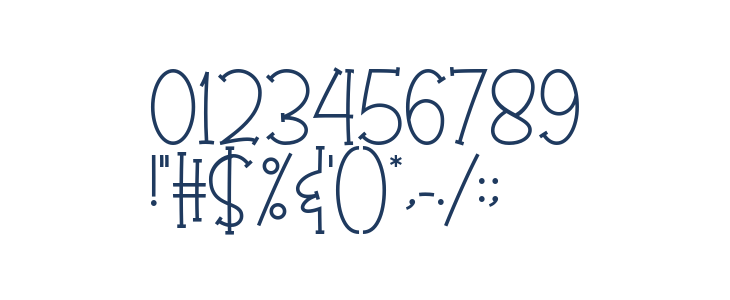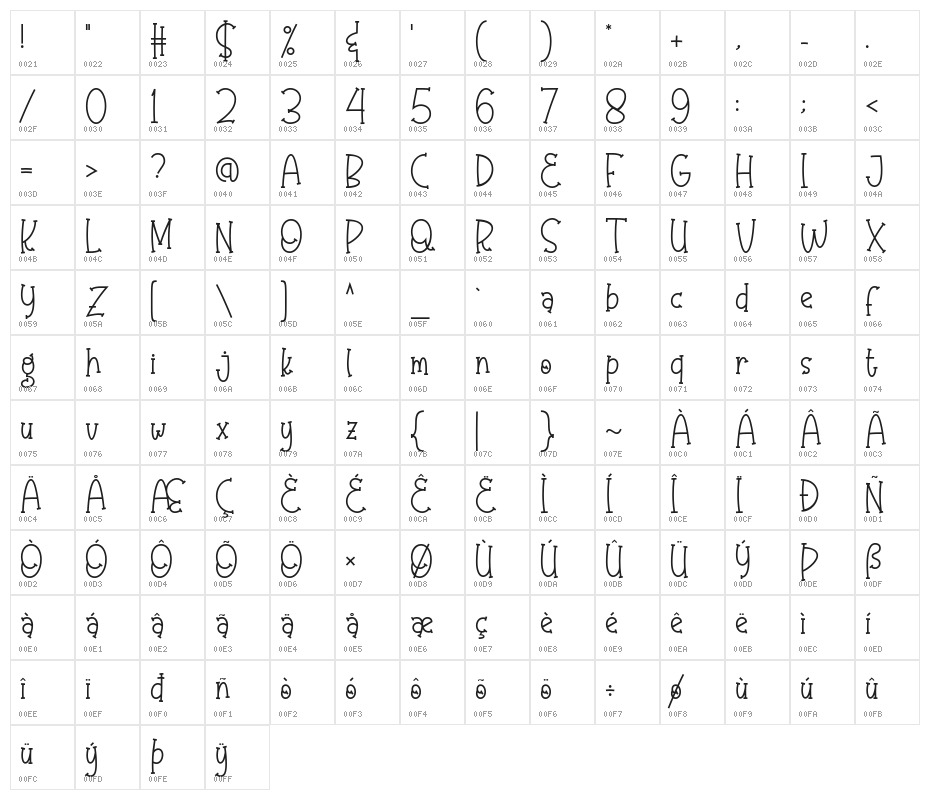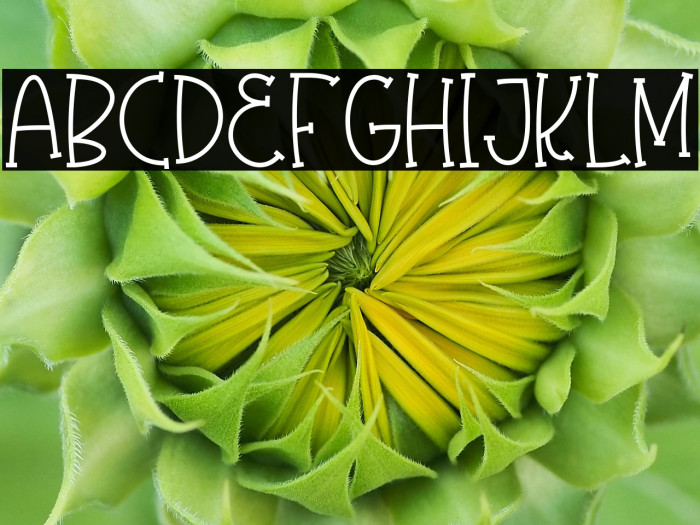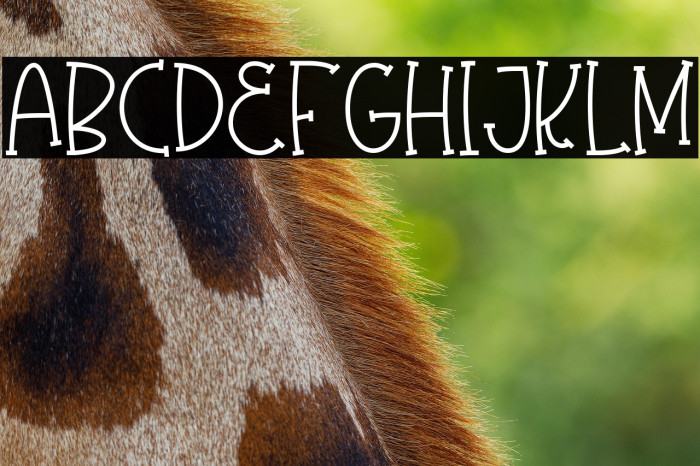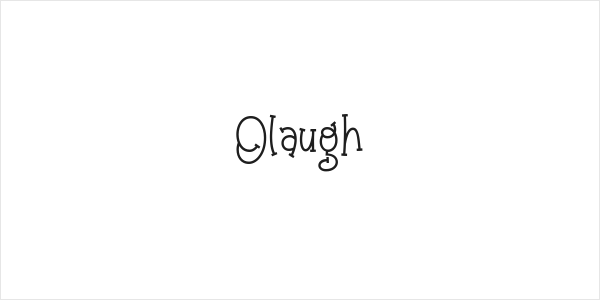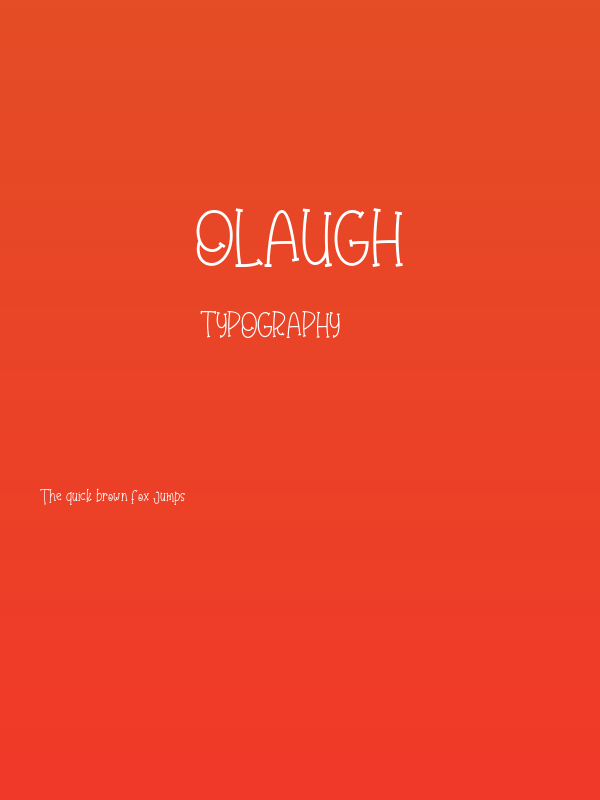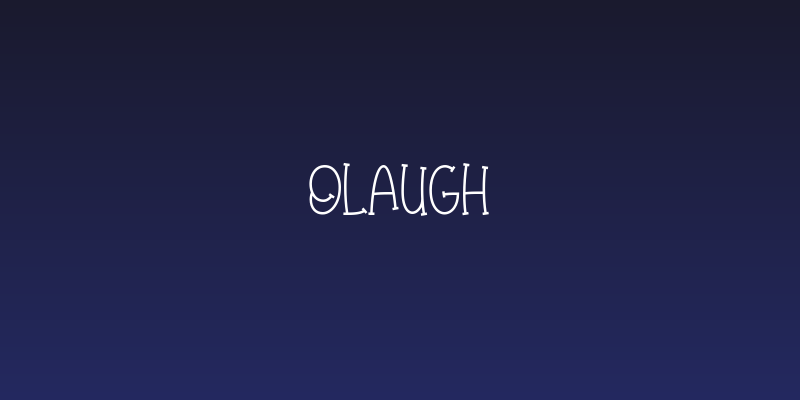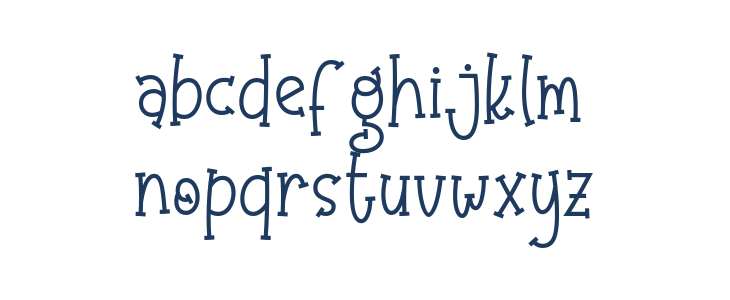
Olaugh Font
This font features a playful and whimsical design, characterized by its uneven strokes and quirky serifs. The letters have a hand-drawn appearance, with irregular curves and varying line thickness that add a sense of movement and energy. The uppercase and lowercase letters maintain a consistent style, with the lowercase letters slightly smaller and more compact. Numbers and special characters follow the same playful aesthetic, making the font suitable for creative and informal projects. The overall look is both fun and approachable, perfect for adding a touch of personality to any design.
| Overall Style | Whimsical, Playful |
| Use Case | Headlines, Logos, Creative Projects |
| Proposed Projects | Ideal for children's books, playful branding, greeting cards, and creative posters. |